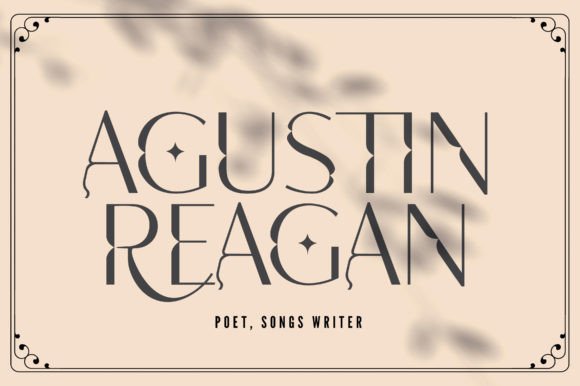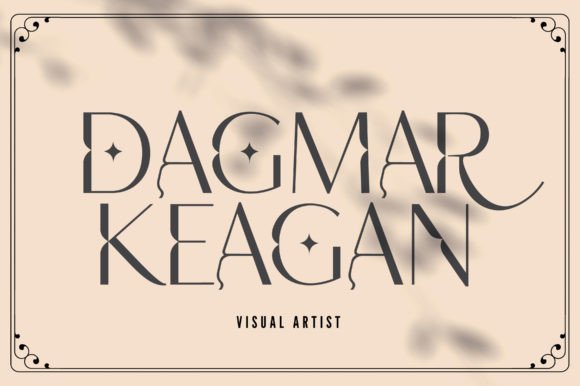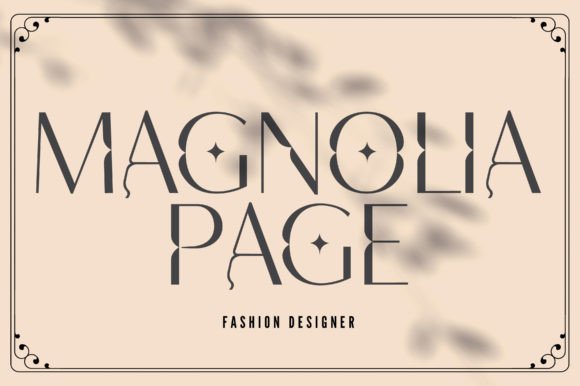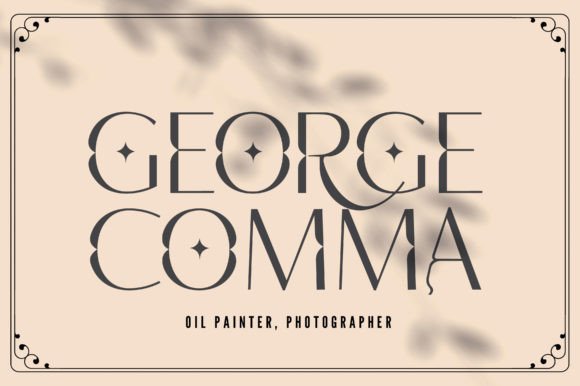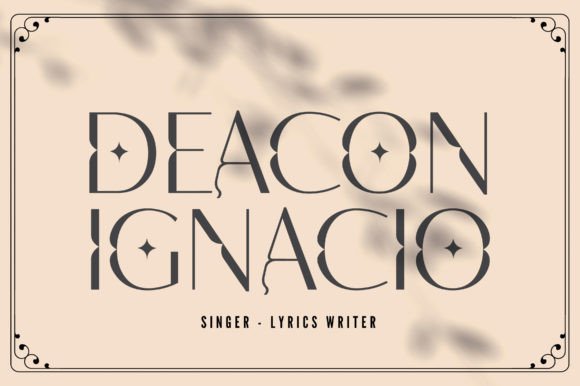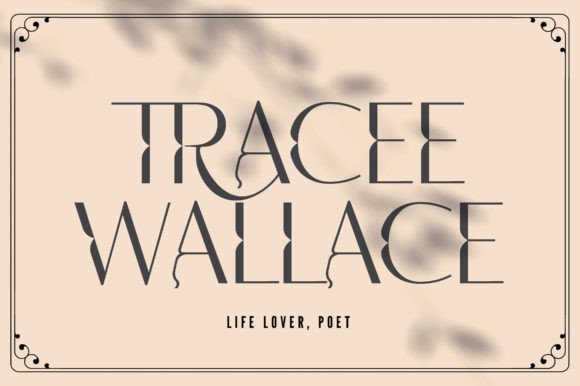
Introducing Agora: The Elegant Sans Serif Font for Modern Designers
In the world of typography, a good font can make all the difference in creating stunning designs that capture the attention of your audience. If you’re a designer or crafter looking for a font that exudes elegance, sophistication, and a touch of playfulness, look no further than Agora Font. This beautiful sans serif font is perfect for those who want to add a minimalist yet stylish touch to their designs, making it ideal for a wide range of projects, from logos and websites to brochures and more.
The Characteristics of Agora Font
Agora Font boasts a range of characteristics that make it an excellent choice for modern designers. Its sans serif design gives it a clean and sleek look that’s easy on the eyes, while its elegant and sophisticated feel ensures that your designs will stand out from the crowd. The font is also highly legible, making it perfect for use in body text, headings, and titles. Whether you’re creating a design for a client or working on a personal project, Agora Font is sure to impress.
Timeless Quality
One of the standout features of Agora Font is its timeless quality. Unlike trendy fonts that quickly go out of style, Agora’s classic design ensures that your designs will remain relevant for years to come. This is especially important for businesses and brands that want to establish a strong visual identity that won’t need to be updated frequently. With Agora Font, you can create designs that will stand the test of time, saving you time and money in the long run.
Versatility
Agora Font is incredibly versatile, making it suitable for a wide range of design projects. Whether you’re creating a logo, designing a website, or crafting a brochure, this font has got you covered. Its clean and elegant design makes it perfect for use in:
• Logos and branding
• Web design and development
• Print materials, such as brochures and flyers
• Packaging and product design
• Advertising and marketing materials
Easy to Read
Readability is a crucial factor when it comes to choosing a font for your designs. Agora Font is designed to be easy to read, even at small sizes. This makes it perfect for use in body text, as well as headings and titles. The font’s clear and concise design ensures that your message will get across to your audience quickly and effectively.
Playful Touch
While Agora Font is undoubtedly elegant and sophisticated, it also has a playful touch that sets it apart from other sans serif fonts. This makes it perfect for designers who want to add a bit of personality to their designs without sacrificing professionalism. Whether you’re creating a design for a children’s brand or a lifestyle company, Agora Font is sure to bring a touch of whimsy and fun to your project.
Why Choose Agora Font?
So why choose Agora Font over other fonts on the market? Here are just a few reasons:
• Elegant and sophisticated design
• Highly legible and easy to read
• Timeless quality that will ensure your designs stand the test of time
• Versatile and suitable for a wide range of design projects
• Playful touch that adds personality to your designs
In conclusion, Agora Font is an excellent choice for designers and crafters looking for a beautiful, elegant, and sophisticated sans serif font. Its timeless quality, versatility, and playful touch make it perfect for a wide range of design projects, from logos and websites to brochures and more. With its high legibility and easy-to-read design, Agora Font is sure to become a staple in your design toolkit. So why wait? Download Agora Font today and start creating stunning designs that will leave a lasting impression on your audience.